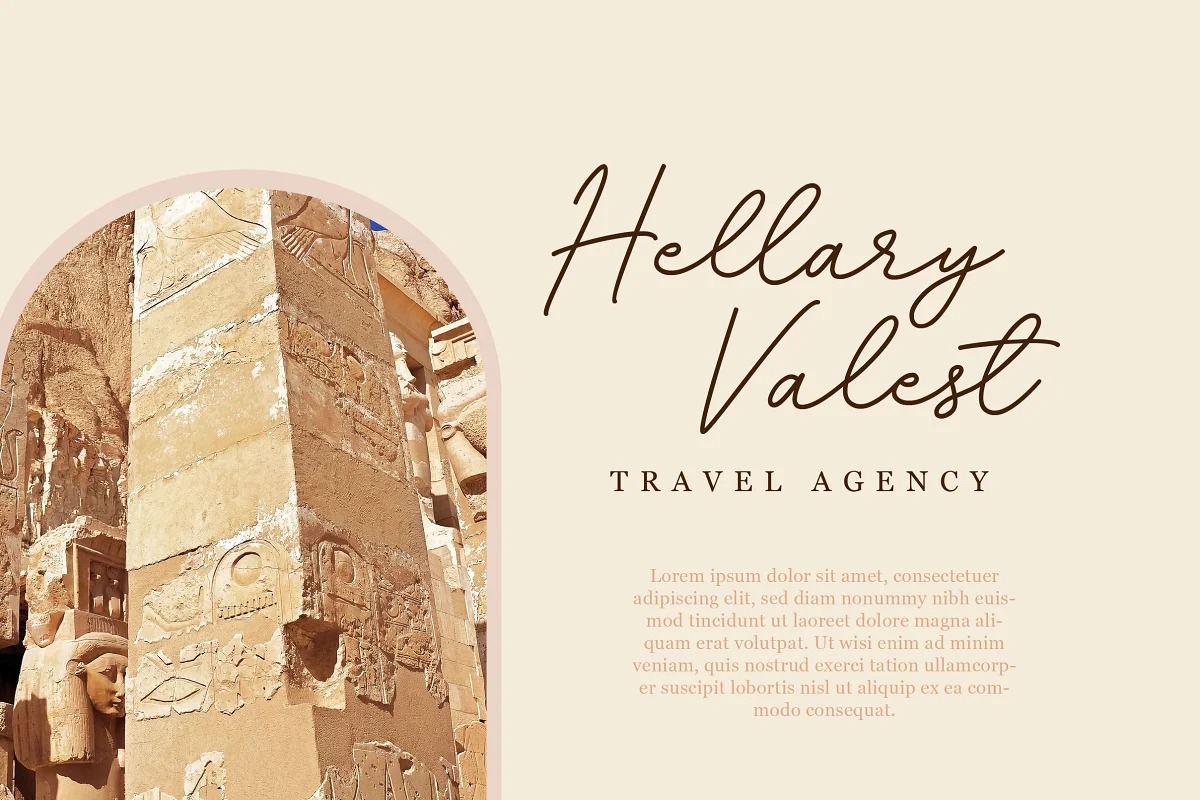
Beristan Font
Beristan Handwritten Font
It’s a sweet handwritten typeface that has a sassy modern style to create the most beautiful design projects. Fall for its ravishing style and use it to create gorgeous wedding invitations, beautiful stationary art, eye-catching social media posts, and much more!